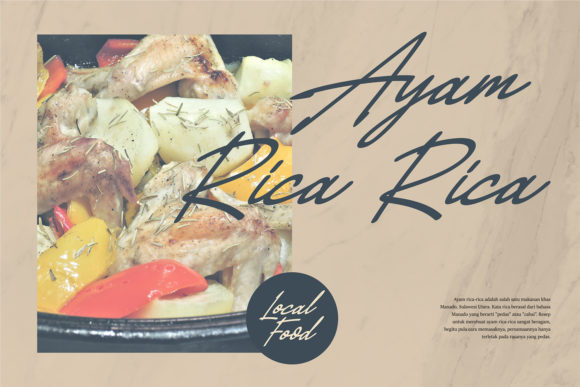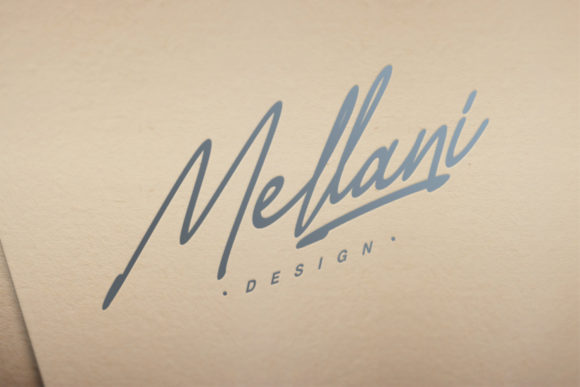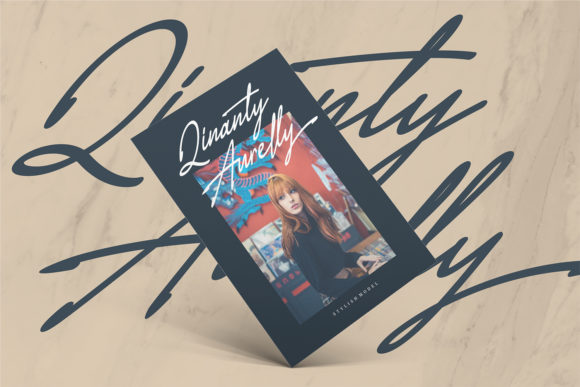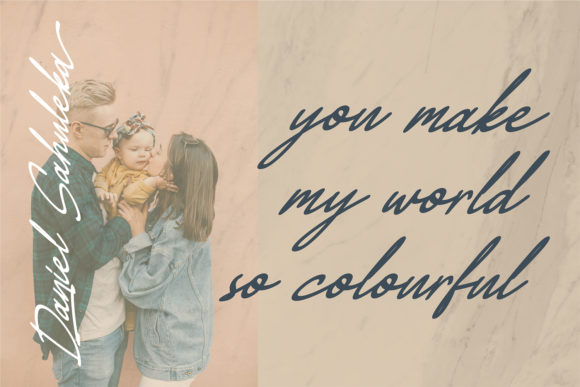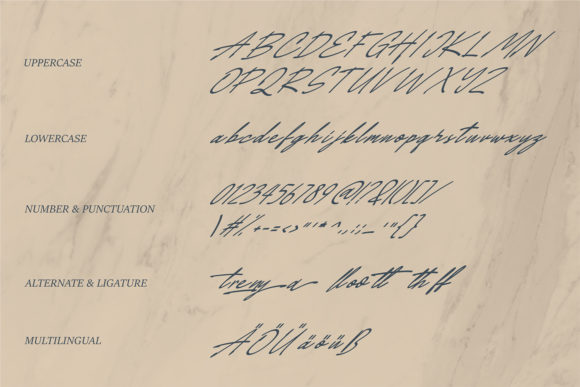
Austin Font: Elevate Your Creative Projects with Elegance and Versatility
Austin is an amazing signature font that has been making waves in the design community. Its unique features and versatility make it an ideal choice for a wide range of creative projects. In this article, we’ll dive into the world of Austin Font and explore its stunning ligatures, uses, and benefits for designers and crafters alike.
The Beauty of Austin Font: Ligatures and Script Styles
One of the standout features of Austin Font is its gorgeous ligatures. Ligatures are special characters that combine two or more letters in a single glyph, creating a beautiful and flowing script. Austin’s ligatures are meticulously designed to add a touch of elegance and sophistication to any text. Whether you’re working on a DIY project, creating social media graphics, or designing a logo, Austin’s ligatures will elevate your work to a new level.
Austin Font offers a range of script styles that cater to different design needs. From elegant and refined to bold and playful, Austin’s script styles can be adapted to suit various creative projects. The font’s versatility makes it an excellent choice for designers and crafters who want to add a personal touch to their work.
Using Austin Font for Instagram and Social Media Graphics
In today’s digital age, having a strong online presence is crucial for designers, crafters, and small businesses. Austin Font is an excellent choice for creating stunning social media graphics, including Instagram posts, stories, and bio text. Its unique ligatures and script styles will make your content stand out from the crowd and leave a lasting impression on your audience.
Whether you’re a fashion blogger, a lifestyle influencer, or a small business owner, Austin Font can help you create visually appealing graphics that reflect your brand’s personality. Use Austin to create eye-catching headlines, captions, and quotes that showcase your creativity and style.
Austin Font for Calligraphy and DIY Projects
Austin Font is not just limited to digital design; it’s also perfect for calligraphy and DIY projects. The font’s beautiful ligatures and script styles make it an excellent choice for creating handmade cards, invitations, and art pieces. Whether you’re a seasoned calligrapher or a beginner, Austin Font will inspire you to create stunning pieces that showcase your creativity.
Use Austin Font to add a personal touch to your DIY projects, such as:
- Handmade cards and invitations
- Wall art and quotes
- Journaling and scrapbooking
- Wedding and event signage
Benefits of Using Austin Font
Austin Font offers several benefits for designers and crafters, including:
- Versatility: Austin Font can be used for a wide range of creative projects, from digital design to calligraphy and DIY projects.
- Elegance: Austin’s ligatures and script styles add a touch of elegance and sophistication to any text.
- High-quality design: Austin Font is designed with high-quality craftsmanship, ensuring that your creative projects look professional and polished.
Austin Font is an amazing signature font that offers a unique blend of elegance, versatility, and creativity. Whether you’re a designer, crafter, or small business owner, Austin Font can help you elevate your creative projects to a new level. With its gorgeous ligatures, script styles, and ease of use, Austin Font is an excellent choice for anyone looking to add a personal touch to their work. Try Austin Font today and discover the endless possibilities it offers for your creative projects!